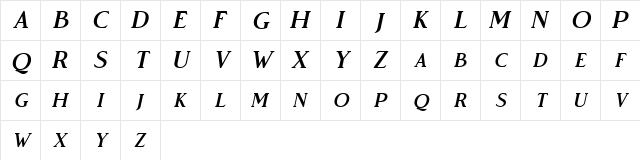
Vendeur Free Italic
Design Context for Vendeur Free Typeface
Vendeur Free is a composed and adaptable typeface that performs quietly and consistently across a wide range of design contexts. The dynamic lean of this cut emphasises speed and emphasis in any layout.
Pro Tip: Try Vendeur Free for annotation and caption copy alongside an upright companion — the contrast in angle creates a dynamic but ordered typographic system.